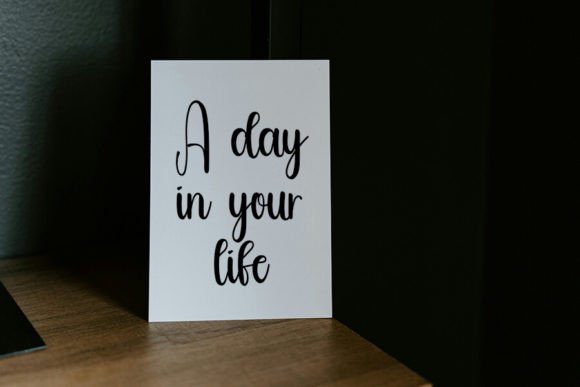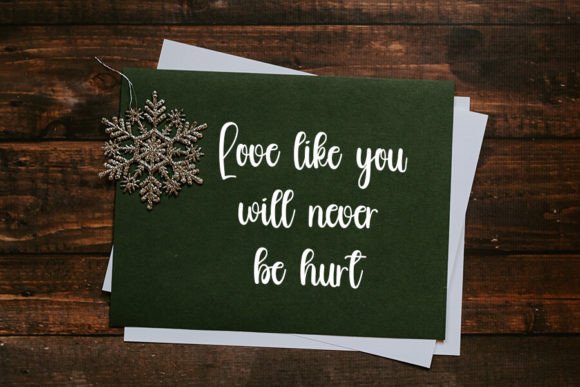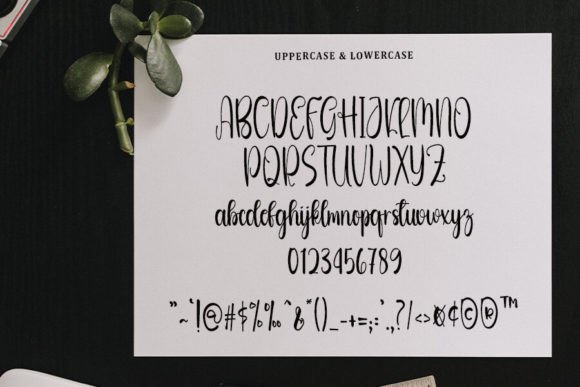
Introduction to Hi Kids Font
Have you ever found yourself staring at a blank canvas, eager to bring your creative vision to life? The blank page can be daunting, but sometimes all it takes is the right tool to spark inspiration. For designers, a well-chosen font can make all the difference. And that’s where Hi Kids Font comes in – a charming handwritten font that’s sure to add a touch of freshness and casual elegance to any project.
With its fluid strokes and organic lines, Hi Kids Font is the perfect design resource for those looking to create high-quality, visually appealing graphics. Whether you’re working on a branding project, crafting invitations, or designing social media graphics, this versatile font is sure to impress. And the best part? Hi Kids Font is available for free download, complete with a transparent background, making it a valuable addition to any designer’s toolkit.
Key Features of Hi Kids Font
- High-quality, kid-friendly font perfect for creative projects and design resources.
- Designed with a playful, childlike aesthetic, making it ideal for educational materials, children’s books, and other creative projects.
Honest Review: Hi Kids Font
As a designer, I’m always on the lookout for high-quality design resources to elevate my creative projects. Recently, I came across the Hi Kids Font, and I must say it’s a great addition to any designer’s toolkit. ✨
Here are some of the key features that make Hi Kids Font a valuable design resource:
- High-quality design that’s perfect for digital and print projects
- Great for creating titles, headings, and logos
- May not be suitable for formal or professional projects, as it has a playful feel
- Not as extensive a character set as some other fonts
Overall, I’m impressed with the Hi Kids Font. It’s a fun, creative font that’s perfect for personal or design projects where you want to add a bit of whimsy. With its high-quality design and free download, it’s definitely worth checking out. ⚠️ Just be mindful of its limitations and use it accordingly.
Tips for Getting the Most Out of the Hi Kids Font
The Hi Kids Font is commonly used in children’s projects, such as educational materials, party invitations, and nursery decor. It’s also great for creating fun and playful designs for social media and marketing materials.
Is Hi Kids Font a high-quality design resource?
Yes, Hi Kids Font is a high-quality design resource, carefully crafted to provide a unique and engaging visual experience. The font’s clear and legible design makes it an excellent choice for various creative projects, from children’s books to educational materials.